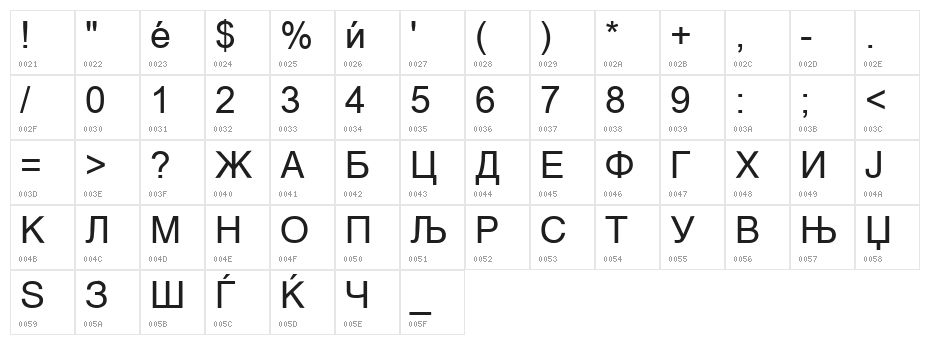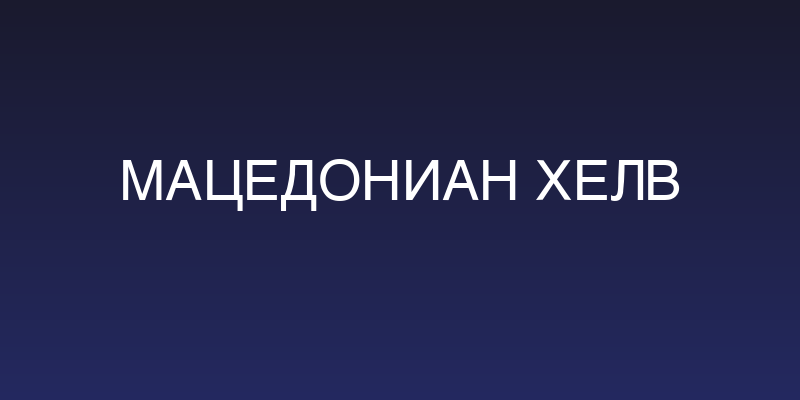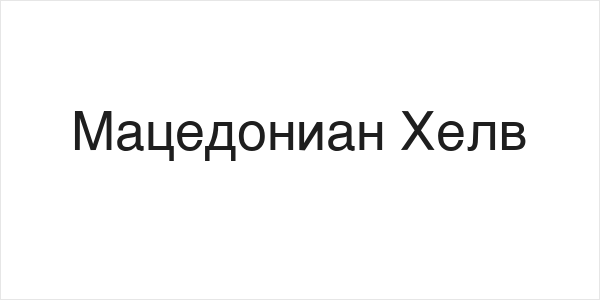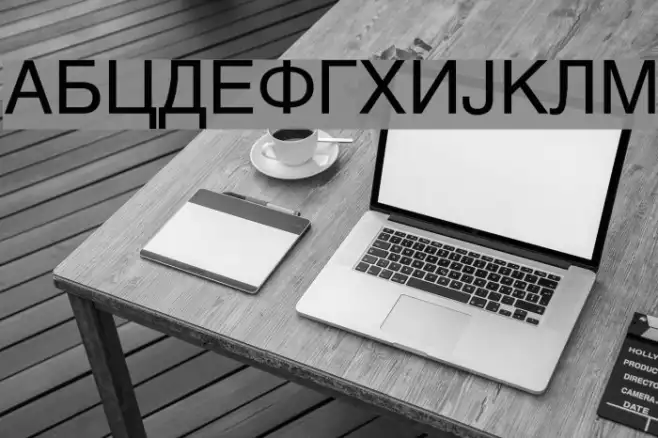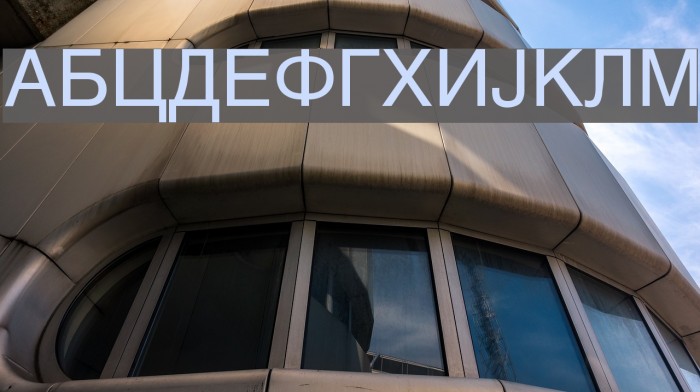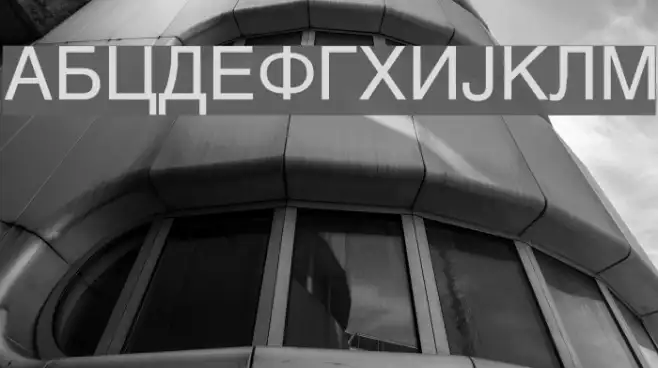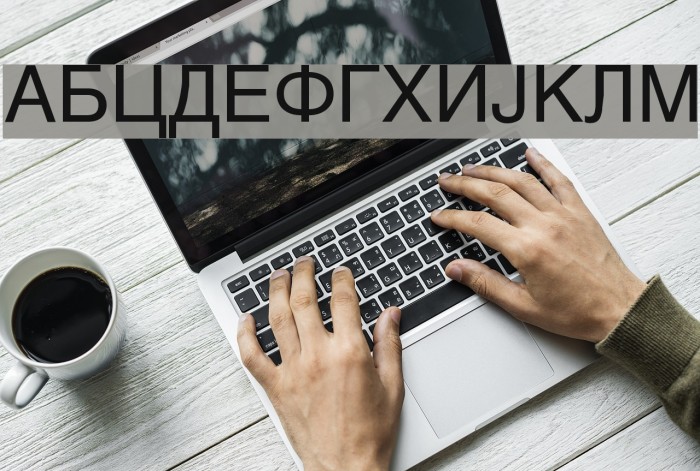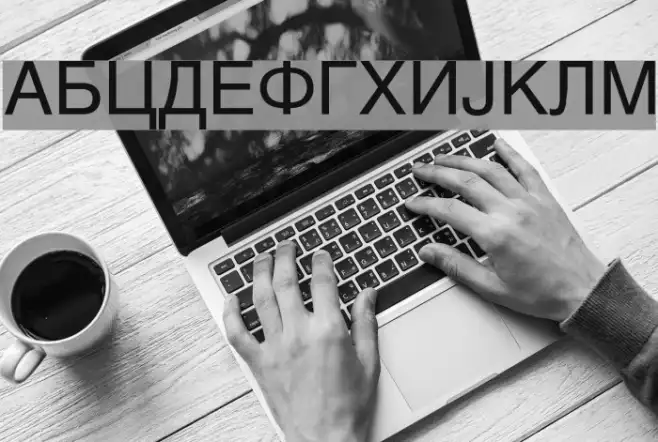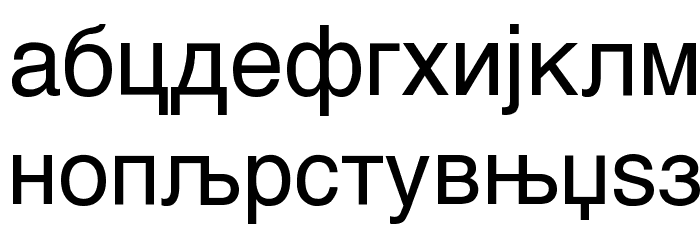
Macedonian Helv Font
Macedonian Helv Description
This font presents a clean and modern sans-serif style, characterized by its uniform stroke width and lack of decorative elements. The uppercase and lowercase letters are well-proportioned, with a consistent height and width that ensures readability. The numerals are clear and distinct, matching the overall aesthetic of the alphabetic characters. Special characters are included, maintaining the same design ethos, which makes this font versatile for various applications. The spacing between characters is balanced, neither too tight nor too wide, allowing for comfortable reading in both print and digital formats.